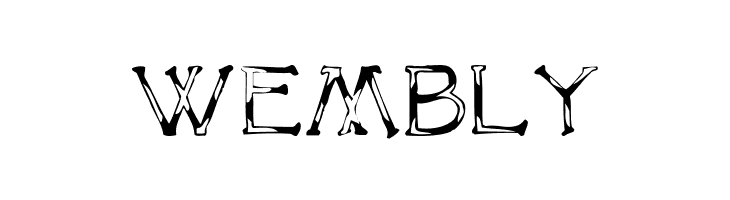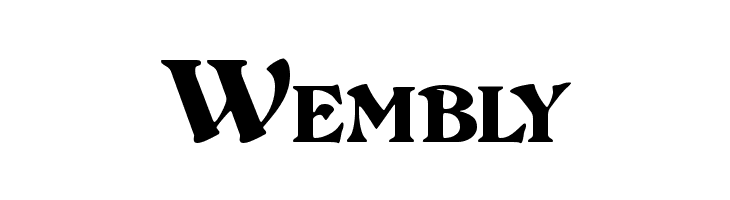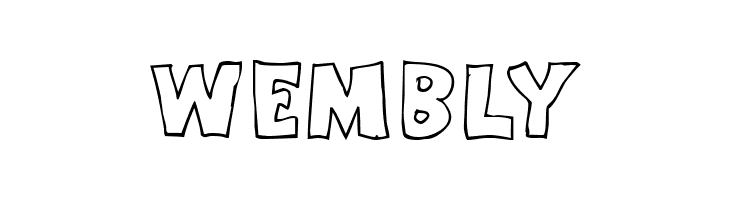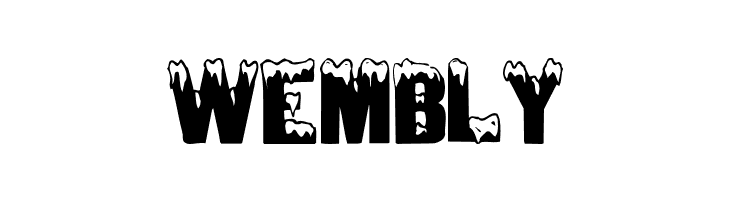
A bold, decorative font with an artistic, hand-drawn style.
A bold, geometric uppercase font with a modern and timeless design.
A playful, balloon-themed decorative font with a whimsical style.
A bold serif font with dramatic strokes and sharp serifs.
A bold, three-dimensional font with a vintage, blocky style.
A bold, geometric font with a futuristic and digital style.
A modern, sleek font with tall, narrow characters and uniform height.
Bold, condensed font with a vintage, decorative style.
A playful, bold outline font with a hand-drawn, comic-style appearance.
A bold, thorny font with sharp, jagged edges for a striking and aggressive look.
A decorative font with historical charm and intricate details.
A bold, hand-drawn style font with rough, jagged edges and a dynamic, energetic feel.
An ornate Gothic-style font with decorative borders and intricate details.